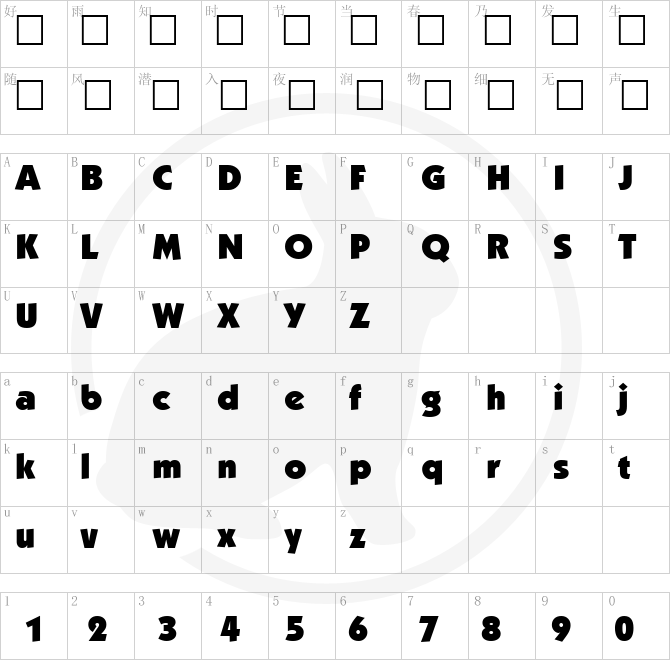
- Font Name:KabobBlack
KabobBlack-Regular-copy-2-.ttf is a very beautiful artistic font, KabobBlack-Regular-copy-2-.ttf is widely used in the design and printing of various books and pictures,KabobBlack-Regular-copy-2-.ttf has a strong visual impact,KabobBlack-Regular-copy-2-.ttf is a commonly used font in newspapers, magazines and books, and is used in posters, e-commerce Poster design, store design, logo design, font design and other fields.KabobBlack-Regular-copy-2-.